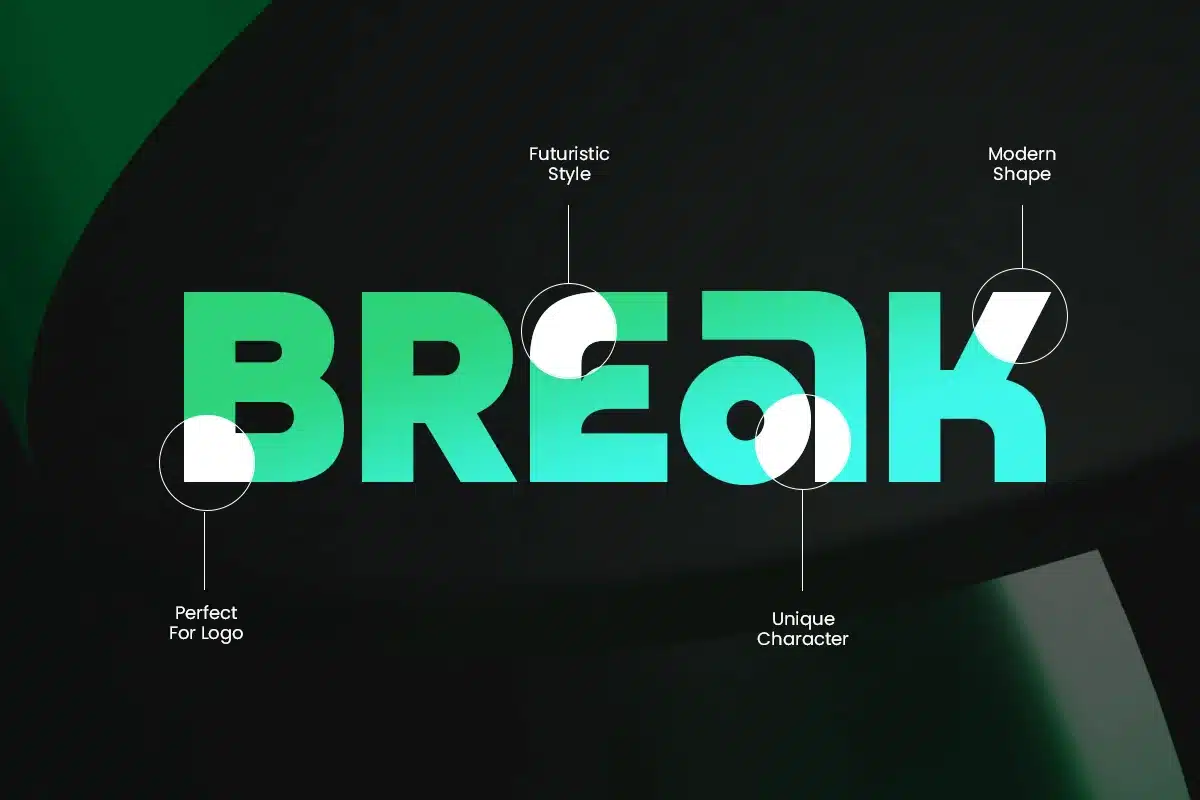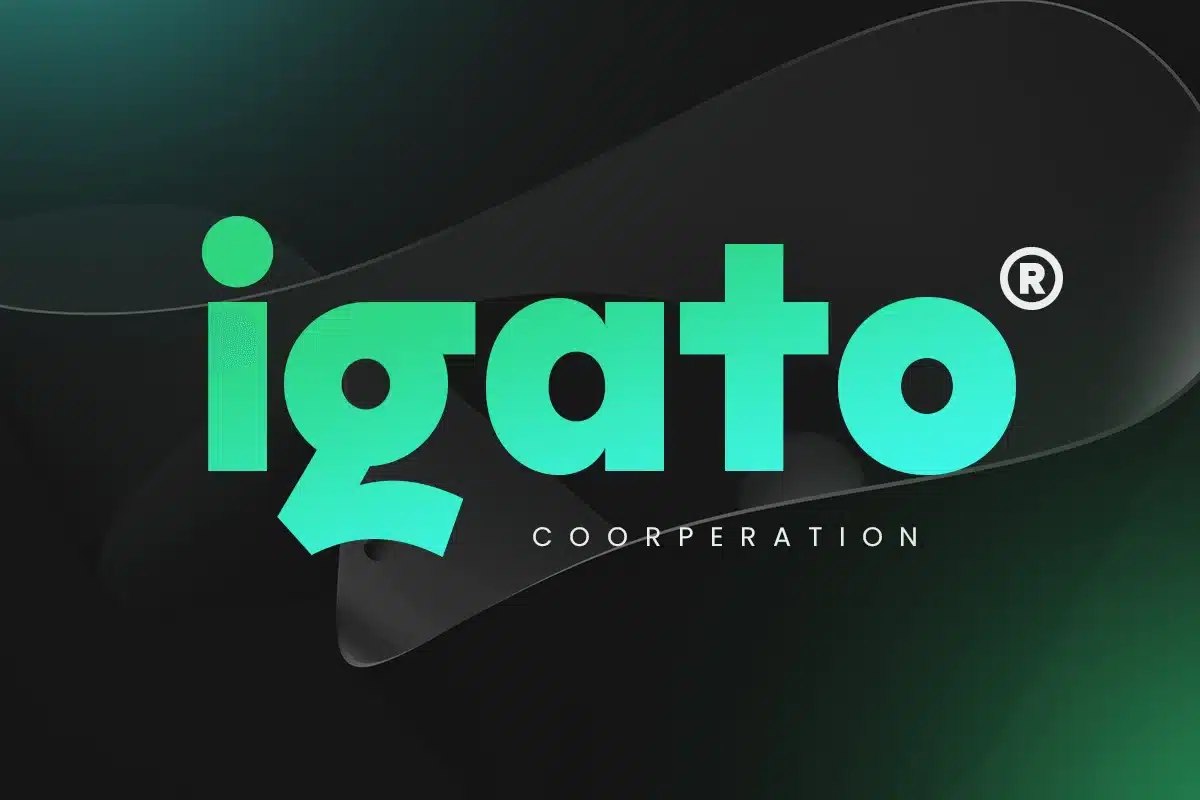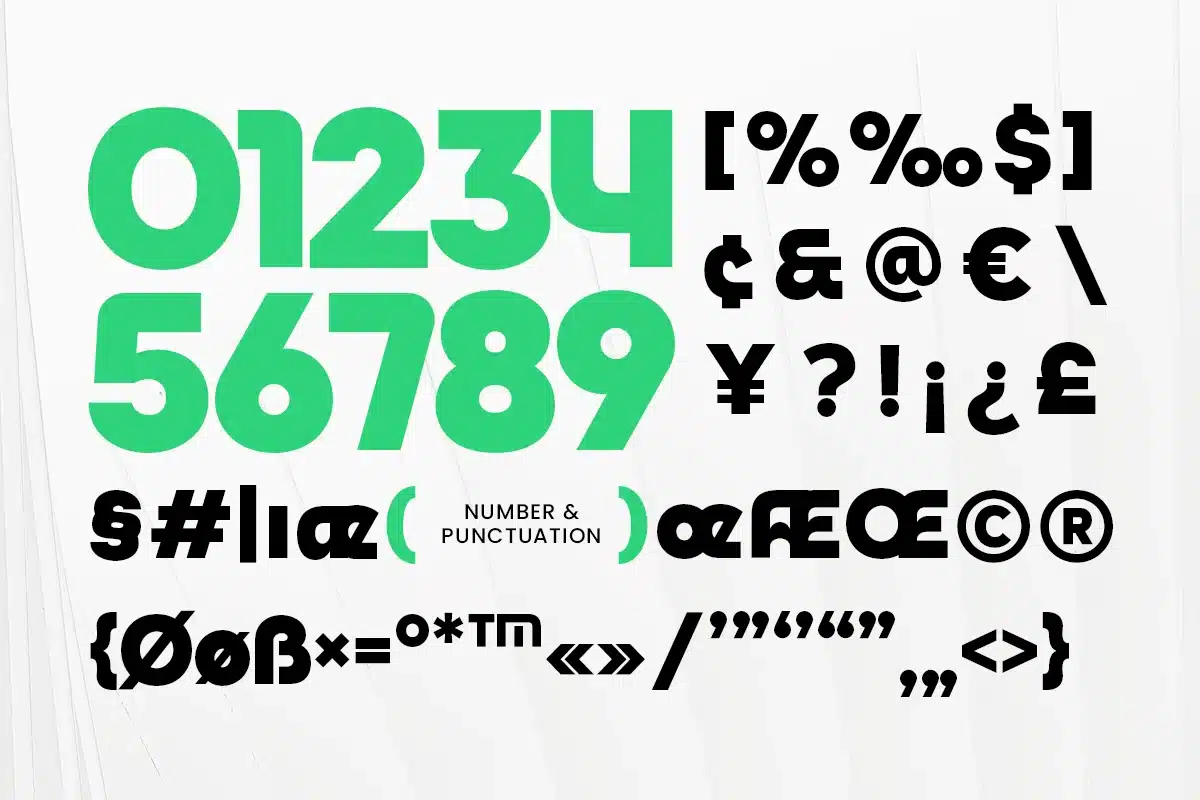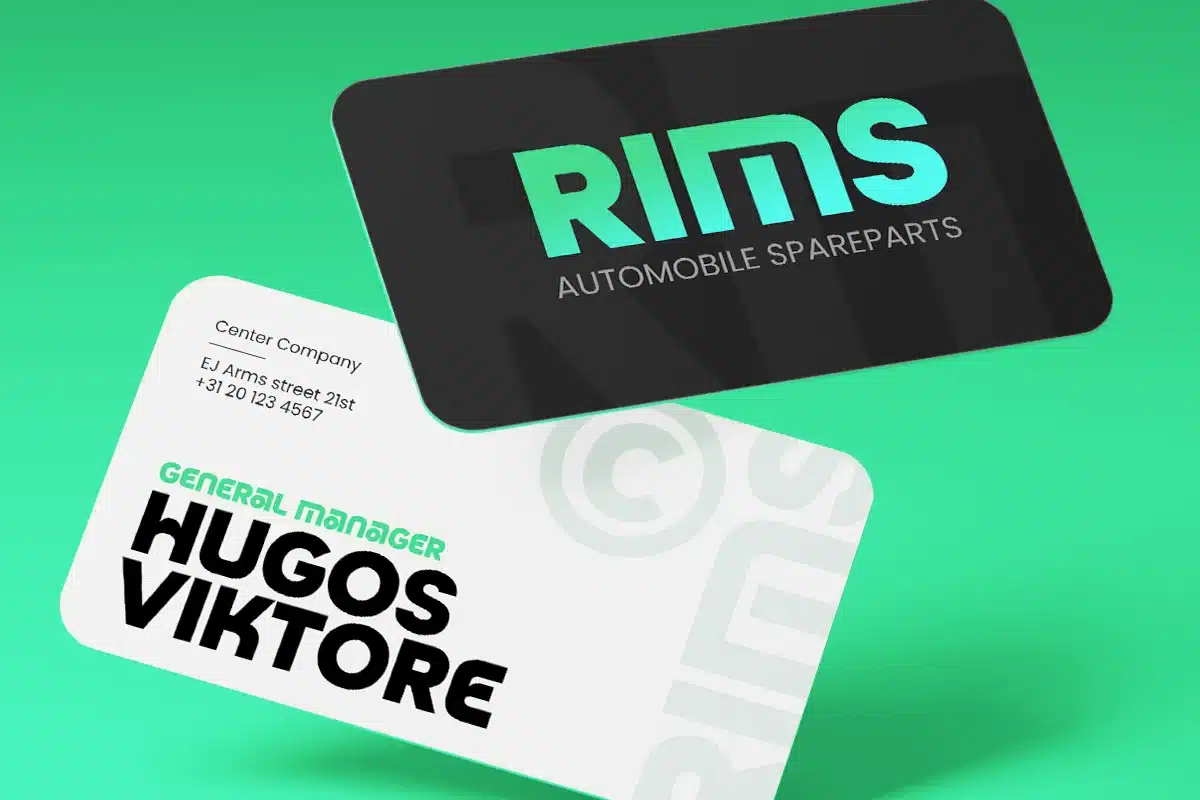
Aneka – Futuristic Logo Font
Aneka is a futuristic logo font designed with precision, minimalism, and innovation in mind. With its clean lines, geometric structure, and modern edges, Aneka is perfect for branding projects, tech startups, esports teams, and sci-fi designs that demand a bold, forward-thinking look.
Each character has been carefully constructed to maintain visual clarity while delivering a sleek and impactful identity. Whether you're designing a digital product interface or a high-tech brand logo, Aneka gives your work that cutting-edge edge.
Push the boundaries of your design with Aneka—a font made for the future.
Aneka – Futuristic Logo Font Features
- Clean geometric futuristic style
- Ideal for tech branding, esports, and digital products
- Punctuation, numbers, and symbols included
- Uppercase and lowercase letters
Step into tomorrow with Aneka—a logo font that speaks the language of the future.